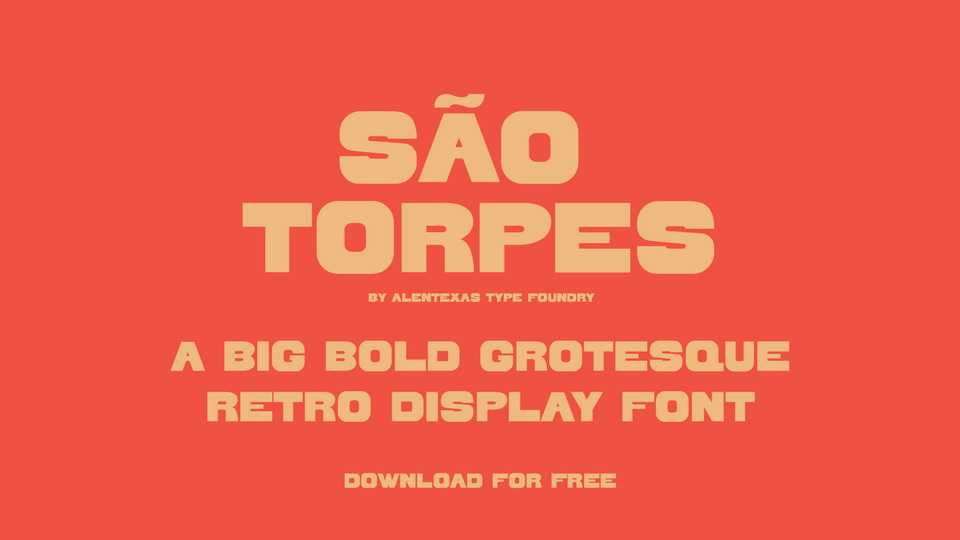
Download São Torpes font, a bold grotesque retro display typeface. With its strong and solid personality São Torpes font is perfect for eye-catching advertisements, impact posters, powerful headlines or any retrospective project.
Designer: Pedro Miguel Xarepe